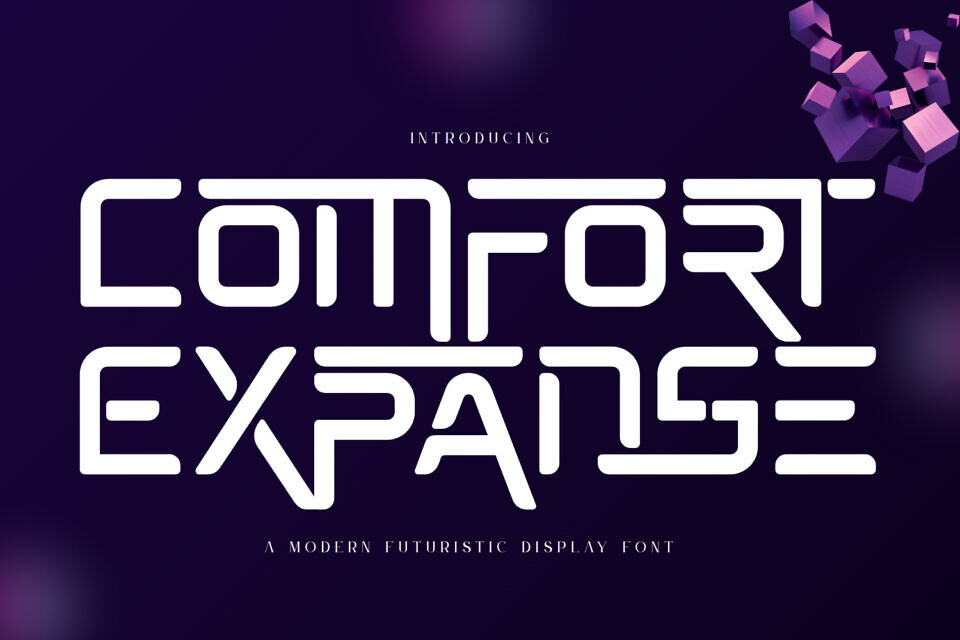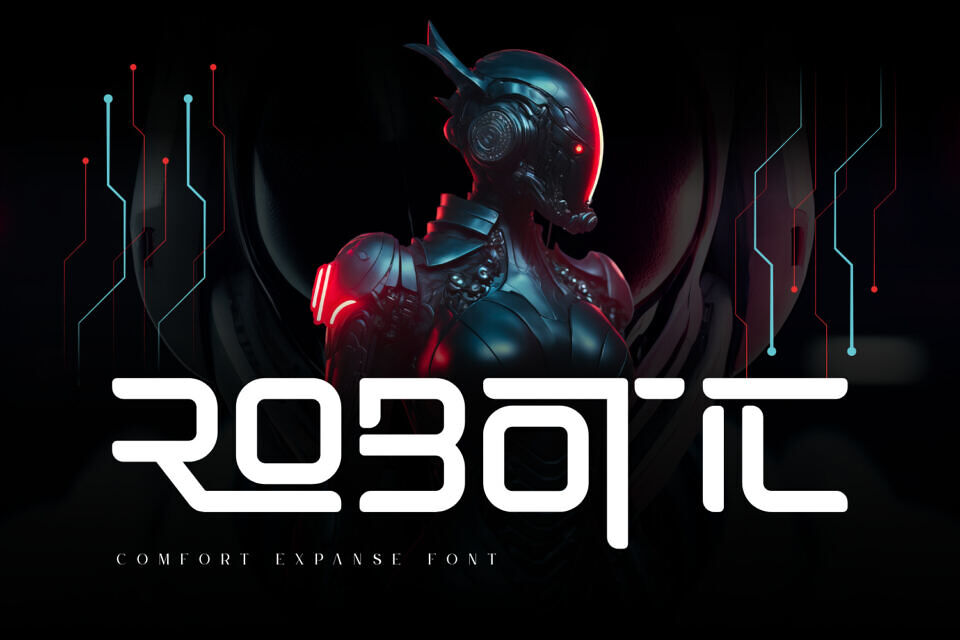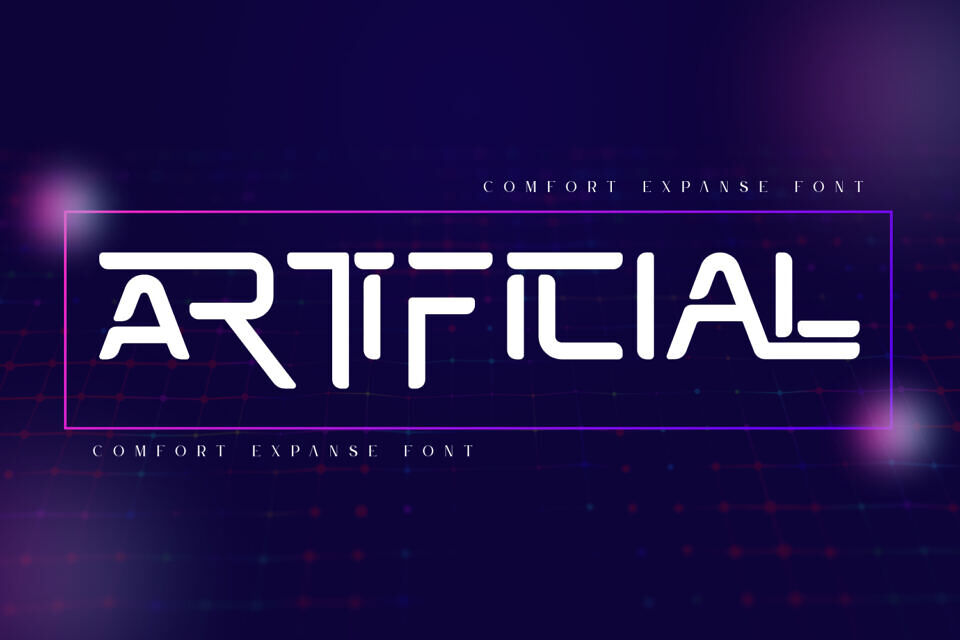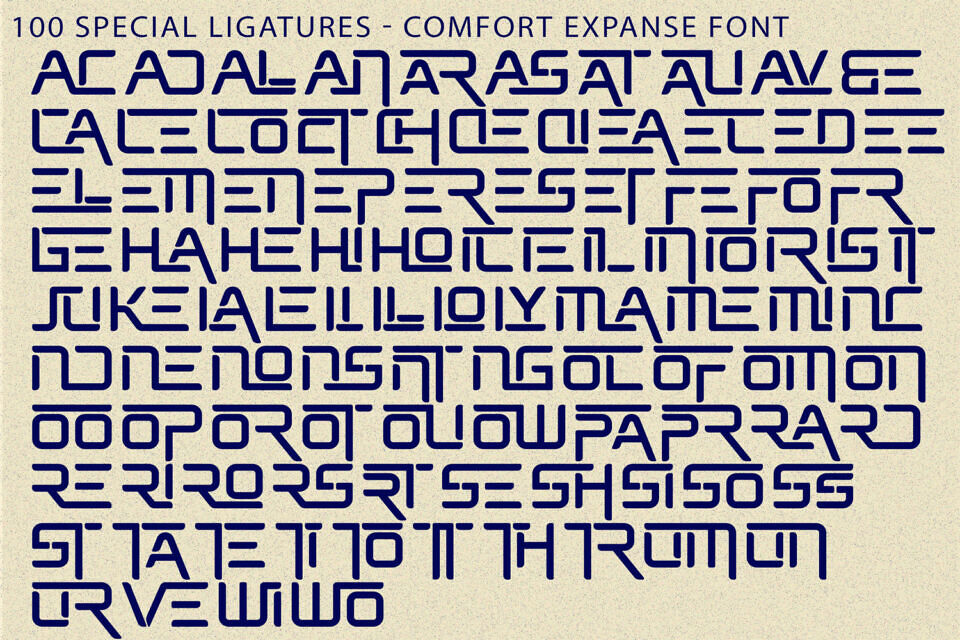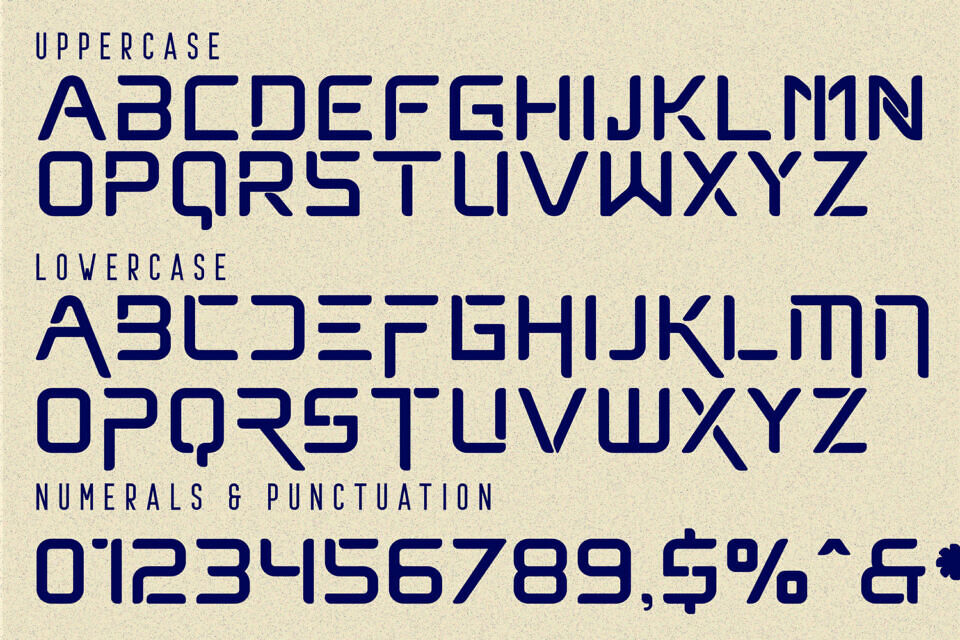
Comfort Expanse Font
Comfort Expanse is a futuristic rounded display sans-serif font designed with clean geometry, smooth corners, and modular letterforms. Its sleek structure creates a modern digital feel, while the rounded details add softness and visual comfort.
With its minimal high-tech personality, Comfort Expanse is perfect for technology branding, UI design, sci-fi posters, gaming titles, startup logos, digital products, and futuristic visual identities.